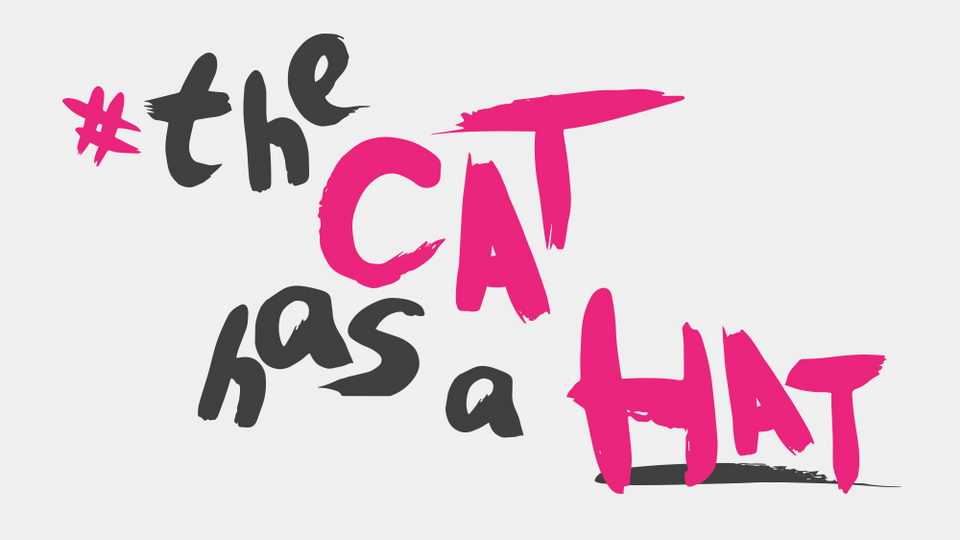
Download The Cat Has a Hat font, a hand painted brush typeface inspired by Dr Seuss and it’s playfulness. It’s fun, playful but not childish. The Cat Has a Hat font is perfect for posters, short messages, banners, t-shirts and apparel, social media and more.
Designer: Lukee Thornhill